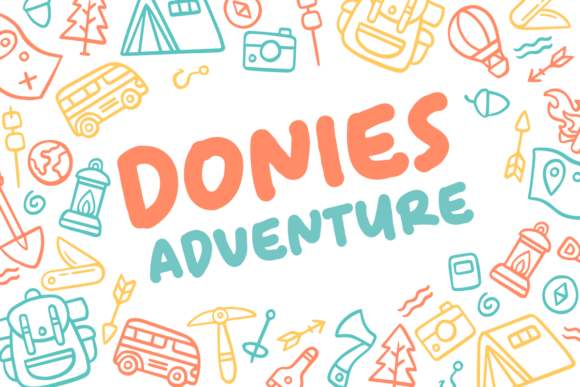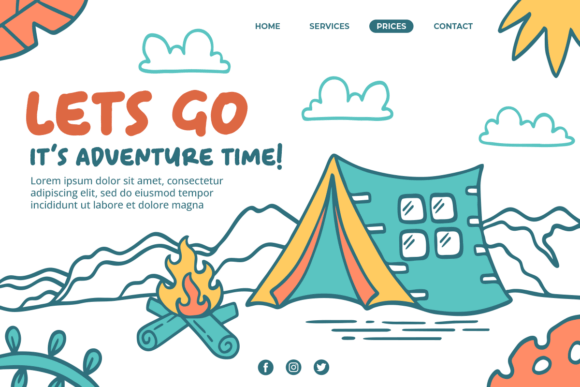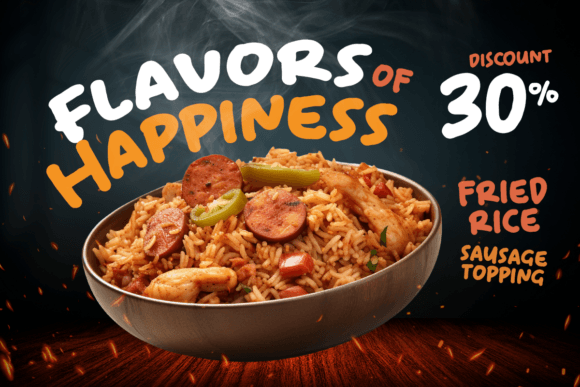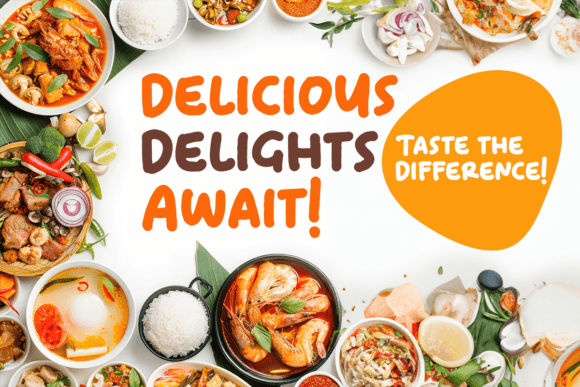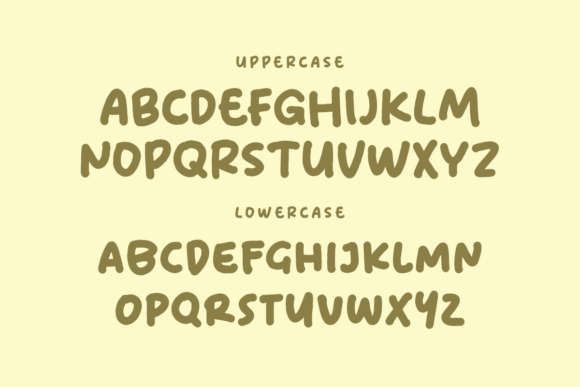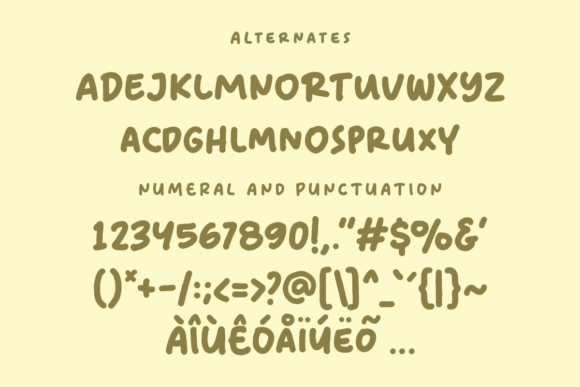
Introduction to Picknick Font Font
Fonts play a crucial role in design, and the Picknick Font font is a typeface that brings both character and versatility to any project. Whether you’re working on a branding project, a website, or a print design, the Picknick Font font offers a unique style that can elevate your work.
Picknick Handwritten Font is a playful and casual typeface that captures the charm of handwritten letters.
Perfect for invitations, quotes, branding, social media posts, and crafts Its lighthearted and friendly style brings warmth and creativity to any design.
Key Features of Picknick Font Font
Why Choose Picknick Font Font?
The Picknick Font font is more than just a typeface – it’s a design tool that helps you communicate your message with style and clarity. Its unique character set and versatile design make it suitable for a wide range of applications, from elegant invitations to bold headlines.
With its carefully crafted letterforms and balanced proportions, the Picknick Font font ensures readability and visual appeal across all mediums.
What makes Picknick Font font special?
The Picknick Font font stands out with its unique design, exceptional readability, and versatility across various design applications.